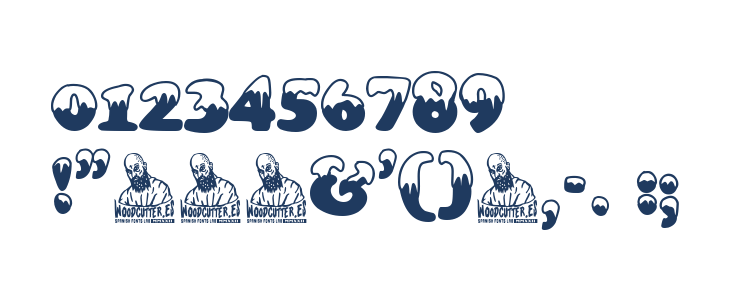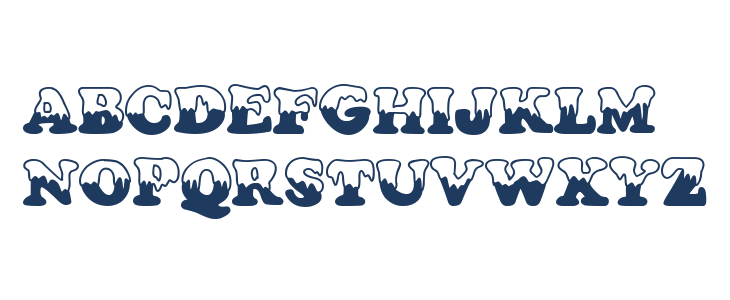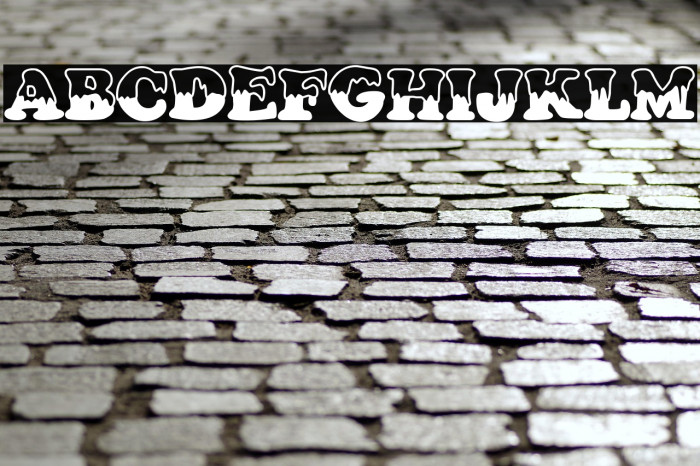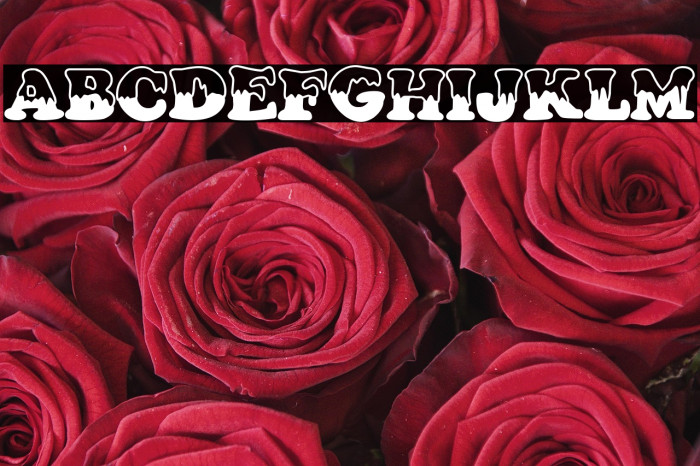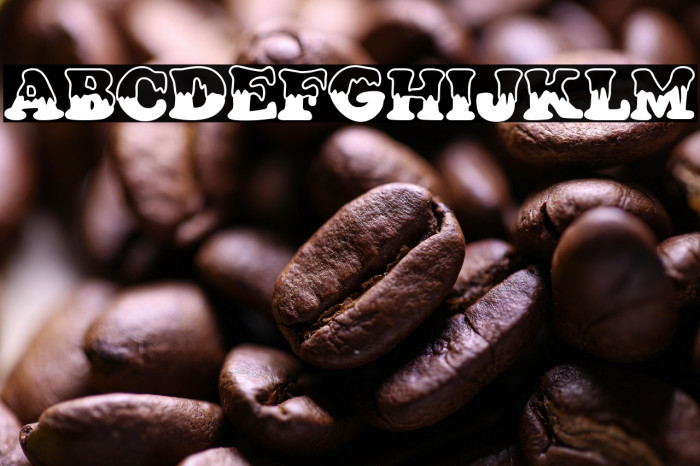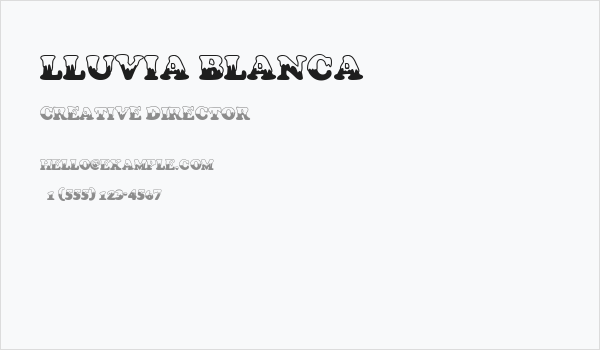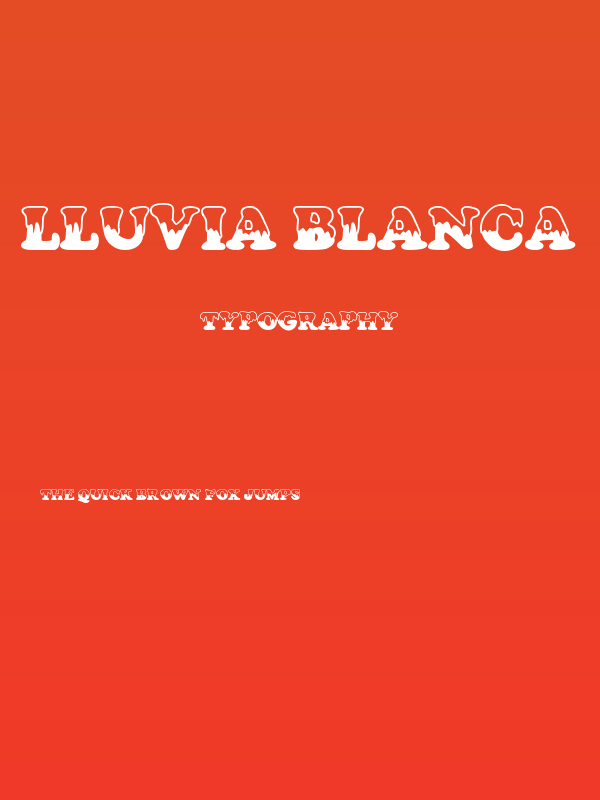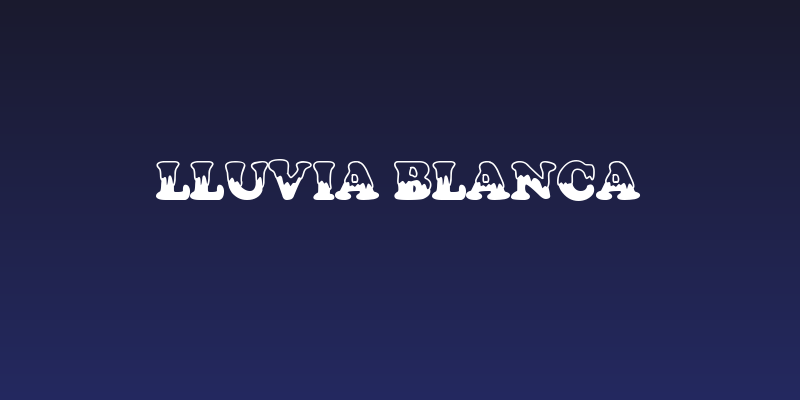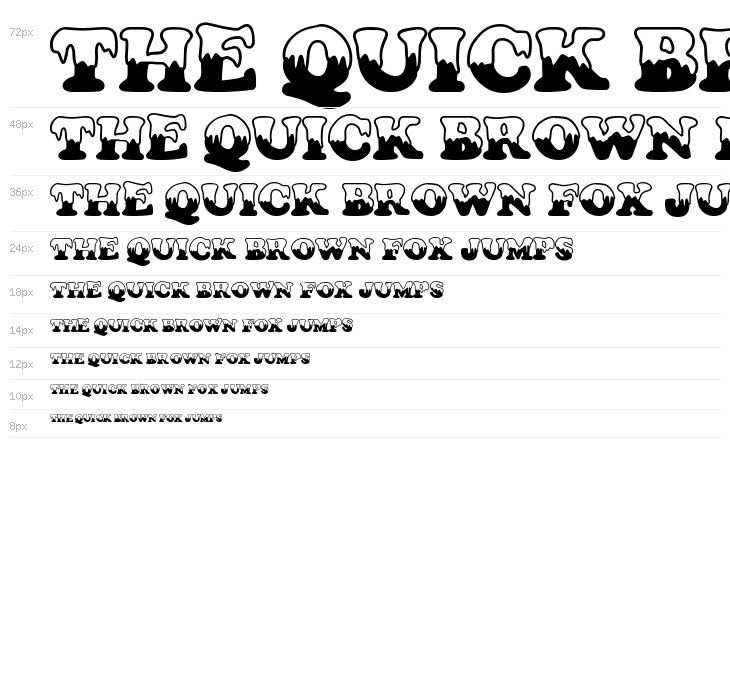
Lluvia Blanca Font
Lluvia Blanca Description
A bold, decorative display font featuring uppercase letters and numbers with a dripping or melting effect on the top portion of each character, creating a playful and eye-catching style.
| Overall Style | Playful, spooky, decorative |
| Use Case | Headlines, posters, logos, themed invitations |
| Proposed Projects | Suitable for Halloween themes, party invitations, posters, logos, and any design needing a fun, spooky, or playful touch. |